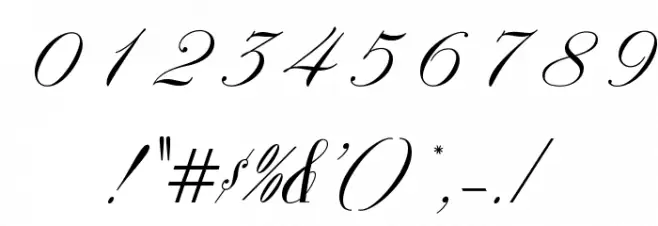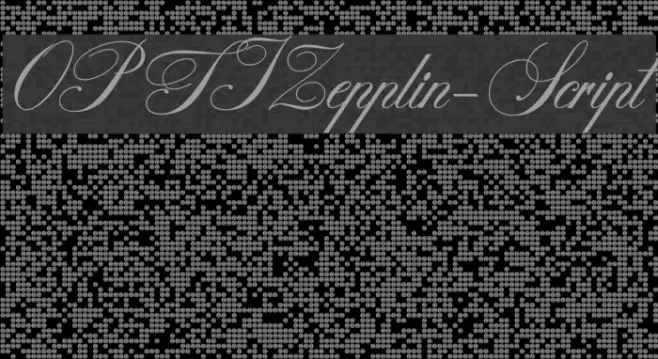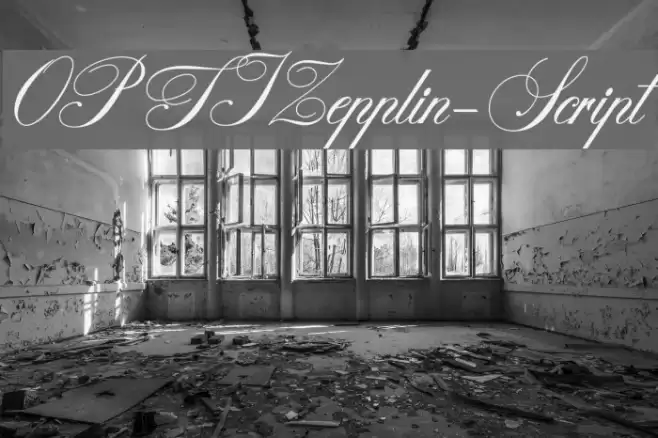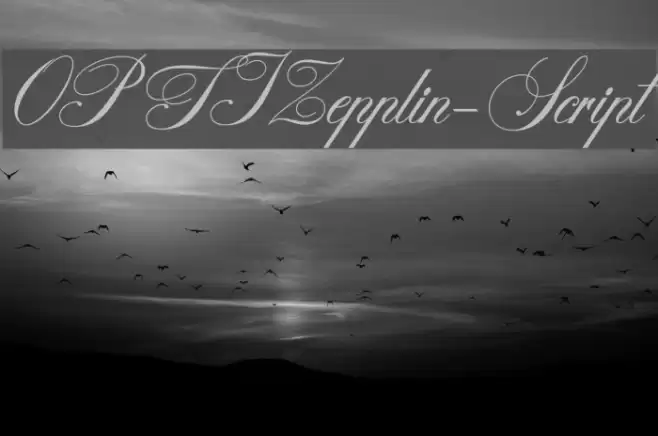
OPTIZepplin-Script Font
OPTIZepplin-Script Description
This elegant script font features a flowing, cursive style with intricate loops and flourishes that give it a sophisticated and classic appearance. The uppercase letters are particularly ornate, with sweeping curves and decorative elements that enhance their visual appeal. The lowercase letters maintain a consistent slant and smooth connections, creating a harmonious and fluid text flow. The numerals are styled to match the script's elegant nature, with subtle curves and a refined look. Special characters are thoughtfully designed to complement the overall aesthetic, making this font suitable for formal and decorative applications.
| Overall Style | Classic |
| Use Case | Logos, Invitations, Decorative text |
| Proposed Projects | Ideal for wedding invitations, elegant branding, formal event programs, and decorative certificates. |